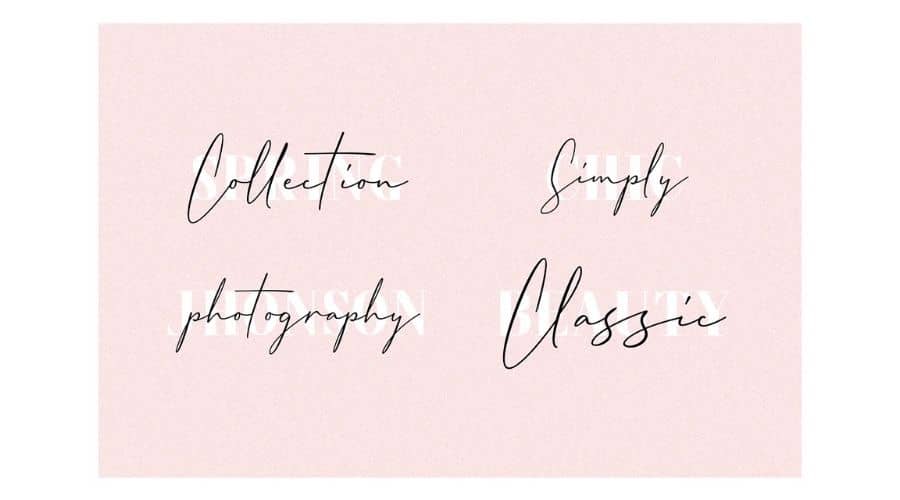
Messy Nessy Signature Font
Messy Nessy Font is now available! The Messy Nessy Signature Font is a handwritten and Script font. RedyStudio created and shared Messy Nessy. On March 1, 2019, the Font was made public. The Font was created with flair and elegance in mind. Its modest, clean, feminine, sensual, glamorous, simple, and intelligible typeface draws attention. Messy Nessy Serif OTF, Messy Nessy Serif TTF, Messy Nessy Serif WOFF, Messy Nessy Script OTF, Messy Nessy Script TTF, Messy Nessy Script WOFF, Messy Nessy Script 1 OTF, Messy Nessy Script 1 TTF, Messy Nessy Script 1 WOFF, and others are included in the Font.
The Script handwritten font is perfect for personalizing and embellishing any project. Combine it with various fonts to give your project a unique look. The Font is perfect for branding, weddings, greeting cards, business cards, packaging, flyers, logos, pictures, books, packaging, posters, invitations, and more. On every type of wallpaper, the font looks fantastic. The font will look great on greeting cards as well.Messy Nessy is a font family that includes two signature script fonts and one serif font. It was designed to assist you in creating beautiful logos, badges, signs, packaging, headlines, social media comments, and more. It’s stunning and sophisticated. Messy Nessy Signature Font is ideal for branding, invites, stationery, wedding invitations, business cards, covers, t-shirts, etc. It will also be utilized to generate a stunning image and text in a variety of colors and styles.